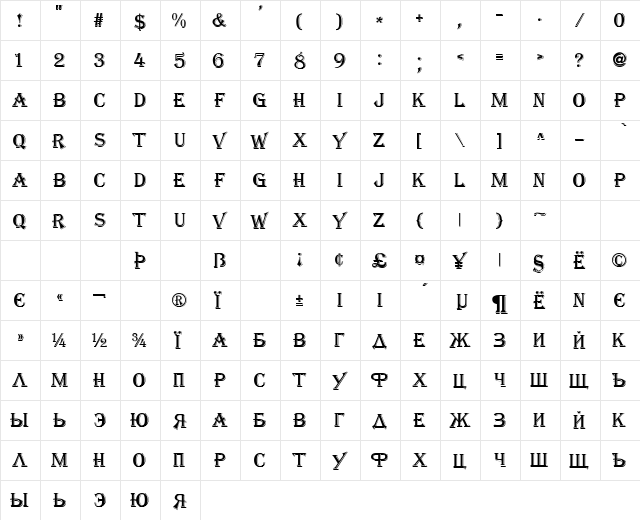
SEnior Regular
Design Context for SEnior Typeface
SEnior offers clean, dependable letterforms without strong stylistic allegiance, making it a practical choice for designers who need flexibility.
Pro Tip: Use SEnior in both headline and body roles to test its range before committing to a single application.